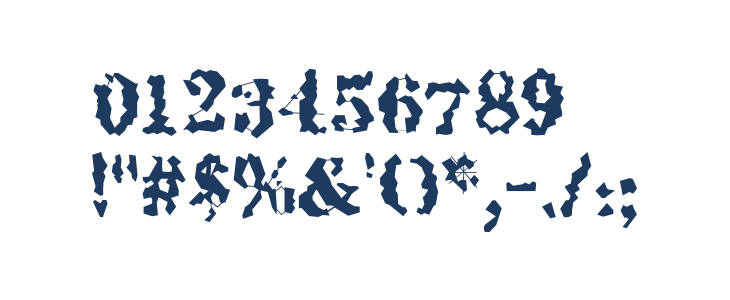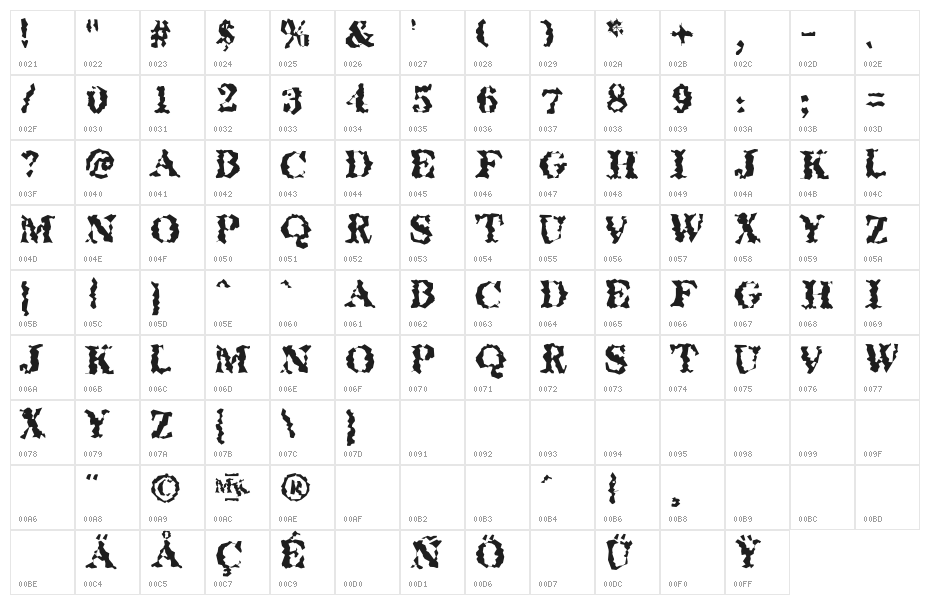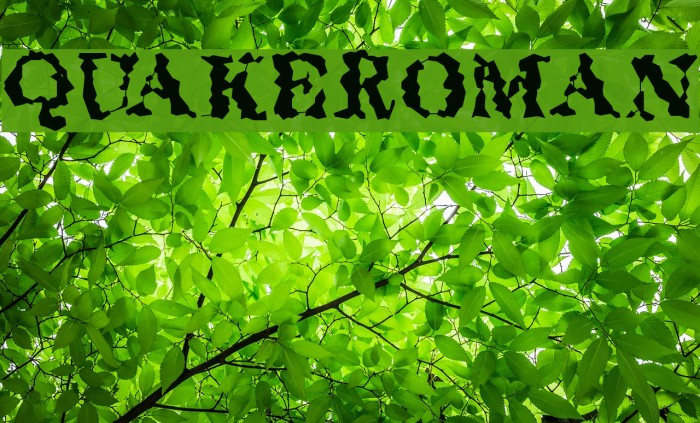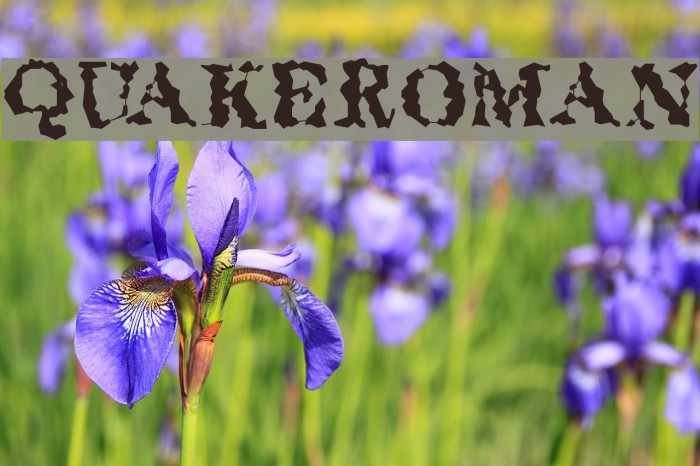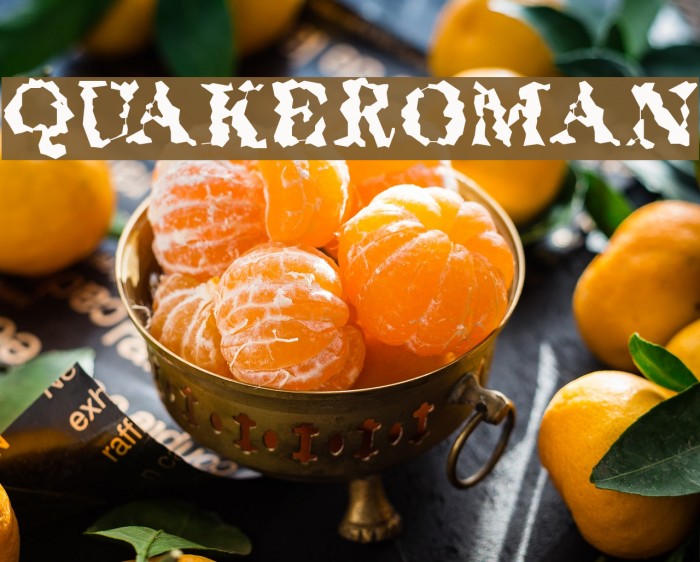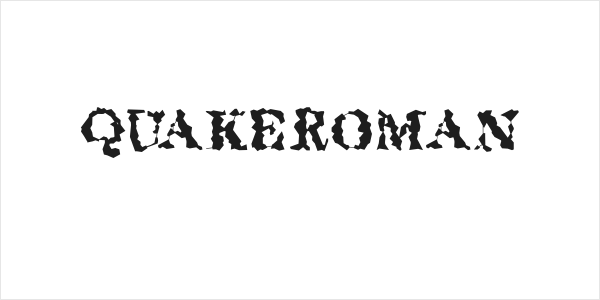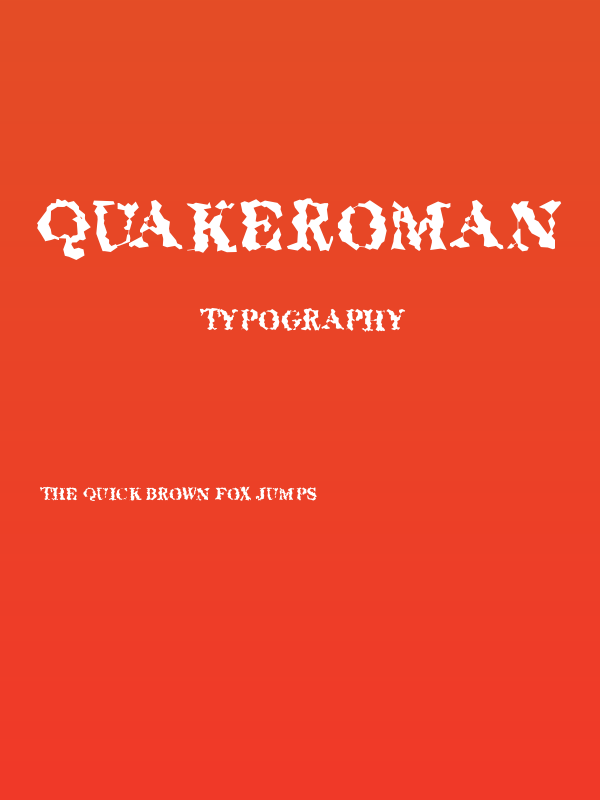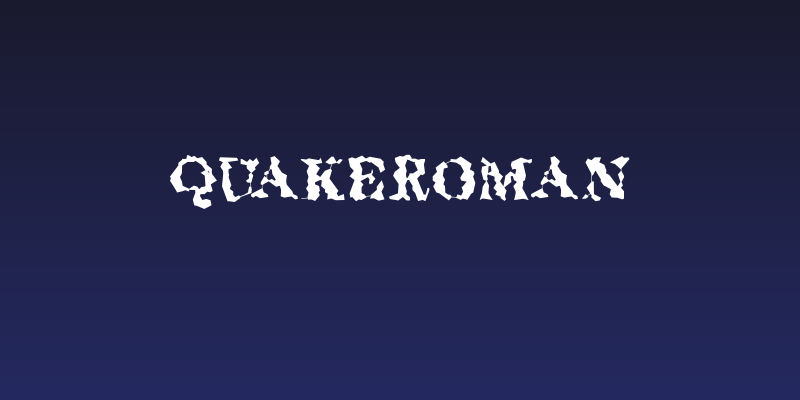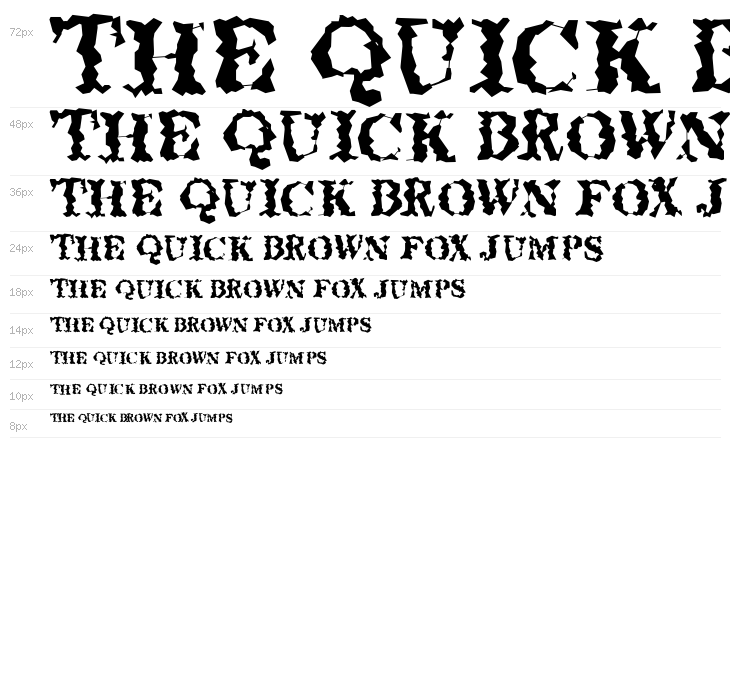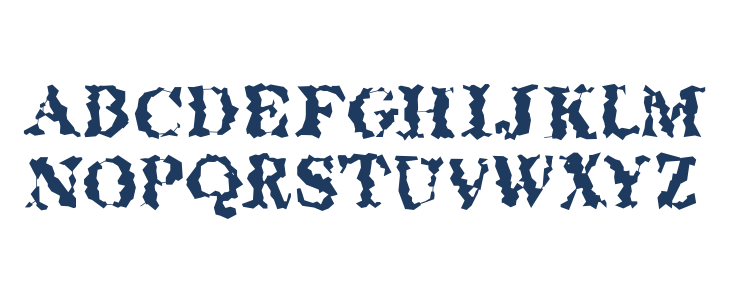
QuakeRoman Font
QuakeRoman Description
This font features a rugged, distressed appearance, reminiscent of cracked stone or shattered glass. The characters have an irregular, jagged edge that gives them a dynamic and chaotic feel. Despite the rough texture, the letters maintain a consistent structure, ensuring readability while adding a unique visual interest. The uppercase and lowercase letters, as well as numbers and special characters, all share this distinctive style, making it suitable for projects that require a bold and impactful design. The font's dramatic appearance makes it ideal for creating eye-catching headlines or logos that need to convey strength and edginess.
| Proposed Projects | Ideal for posters, album covers, video game titles, and branding that requires a bold, edgy look. |